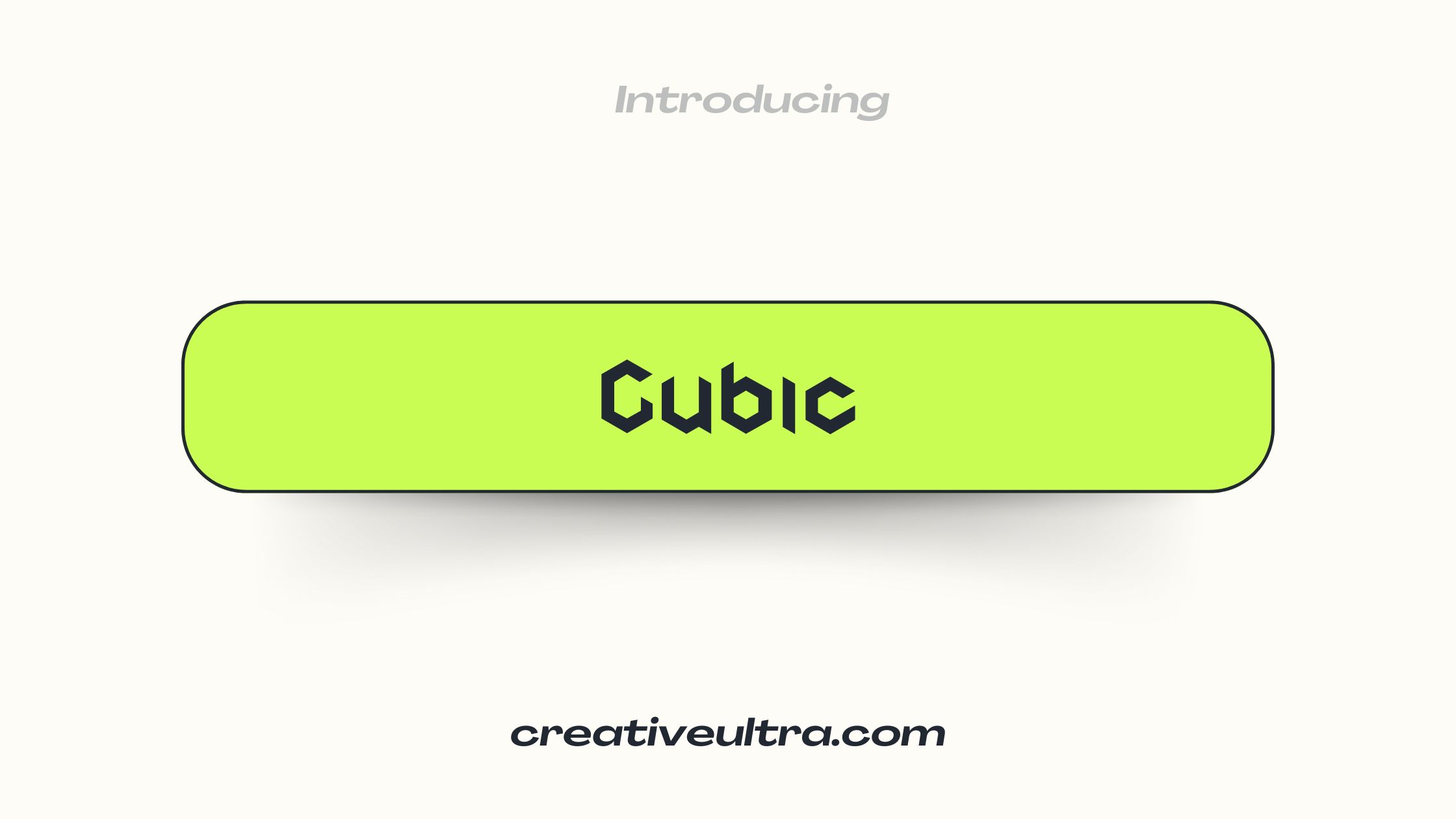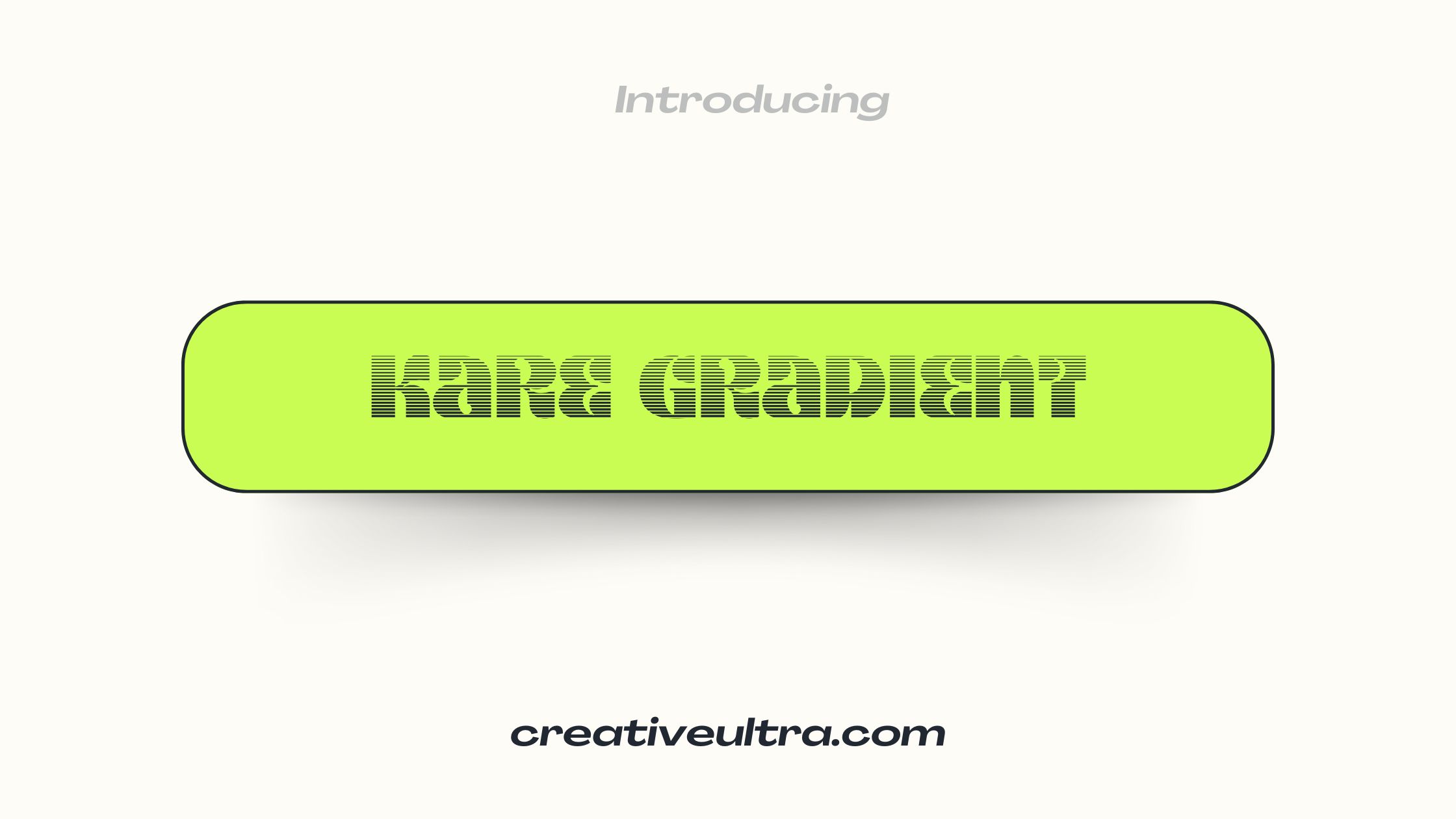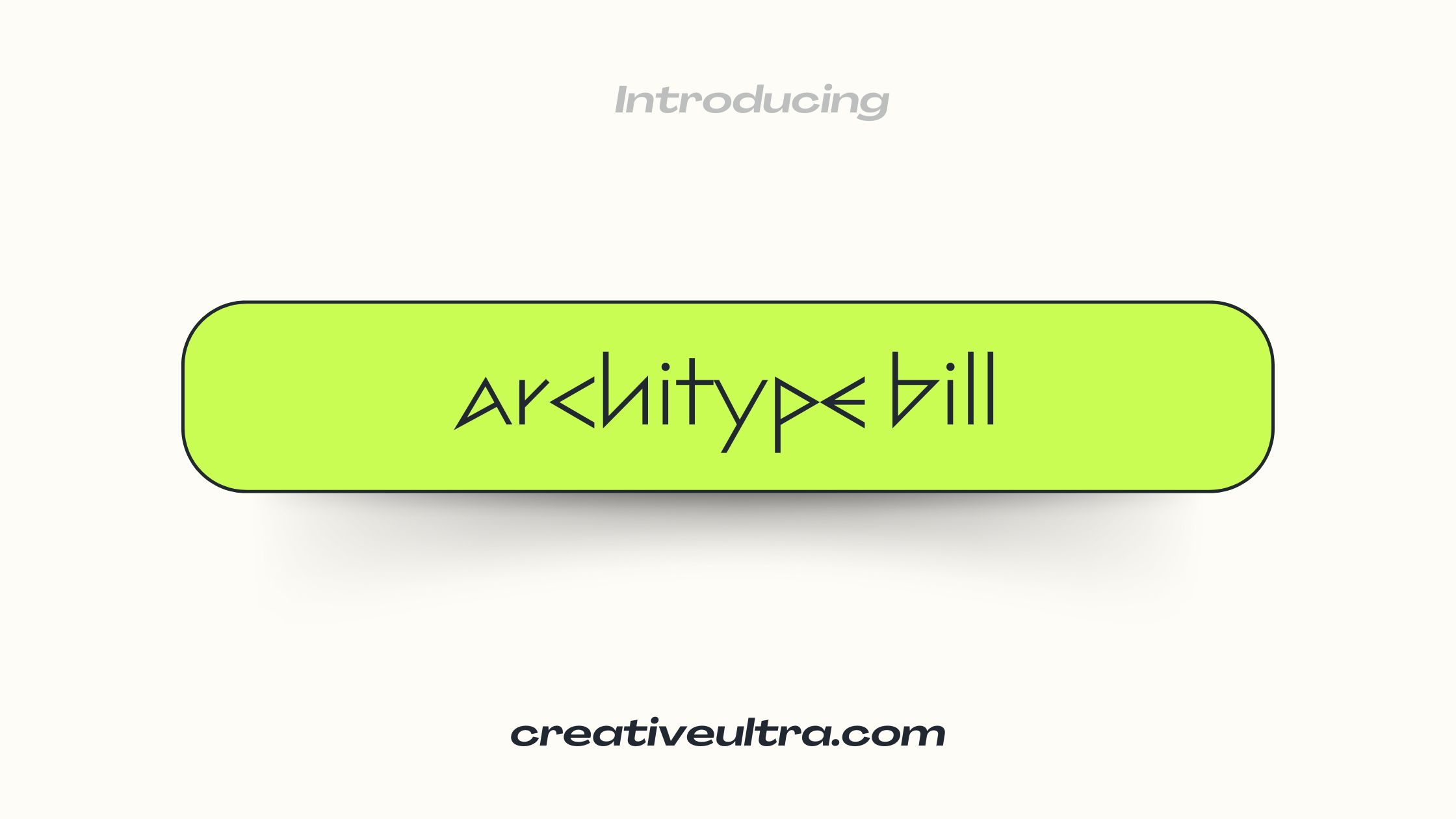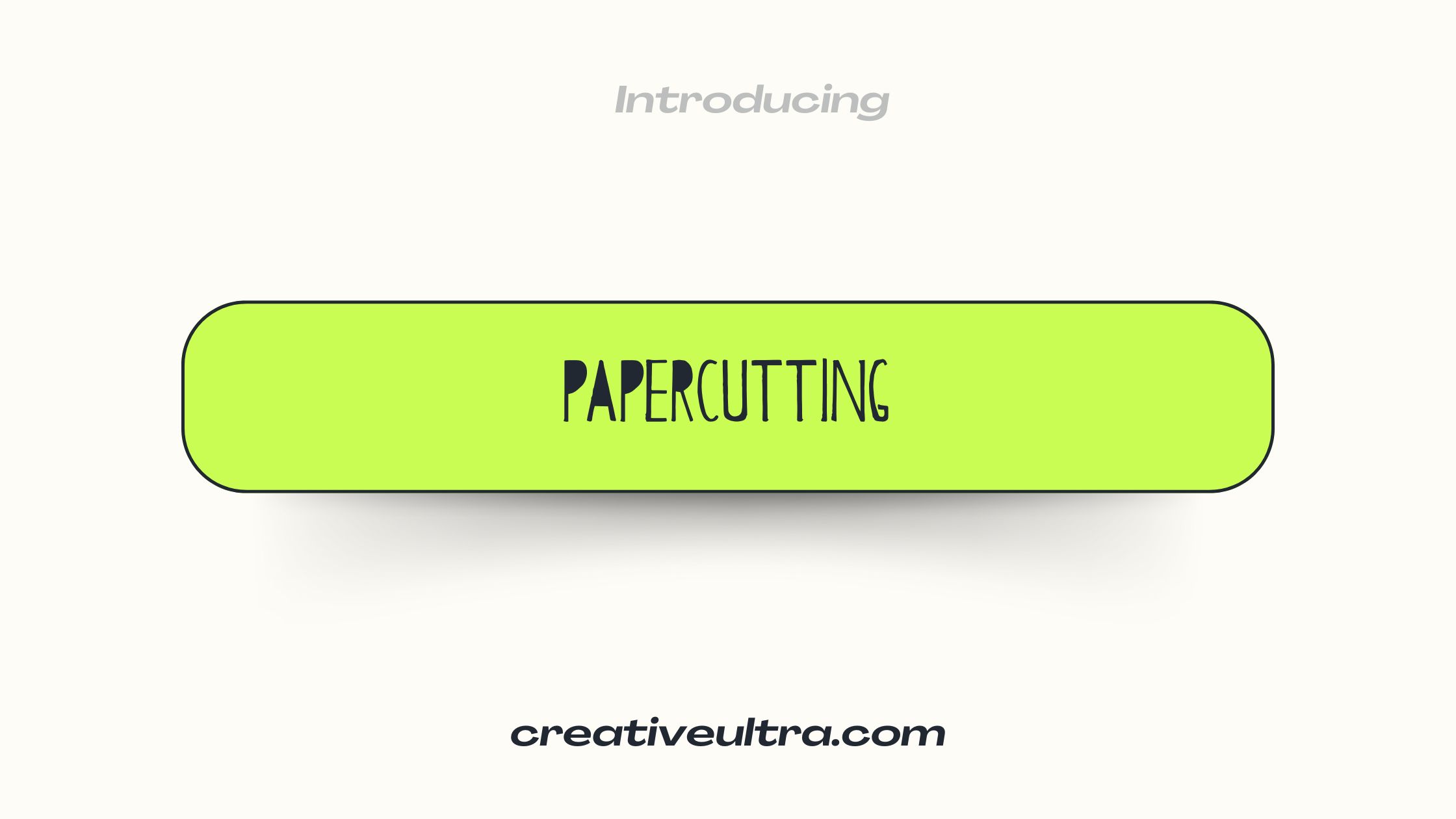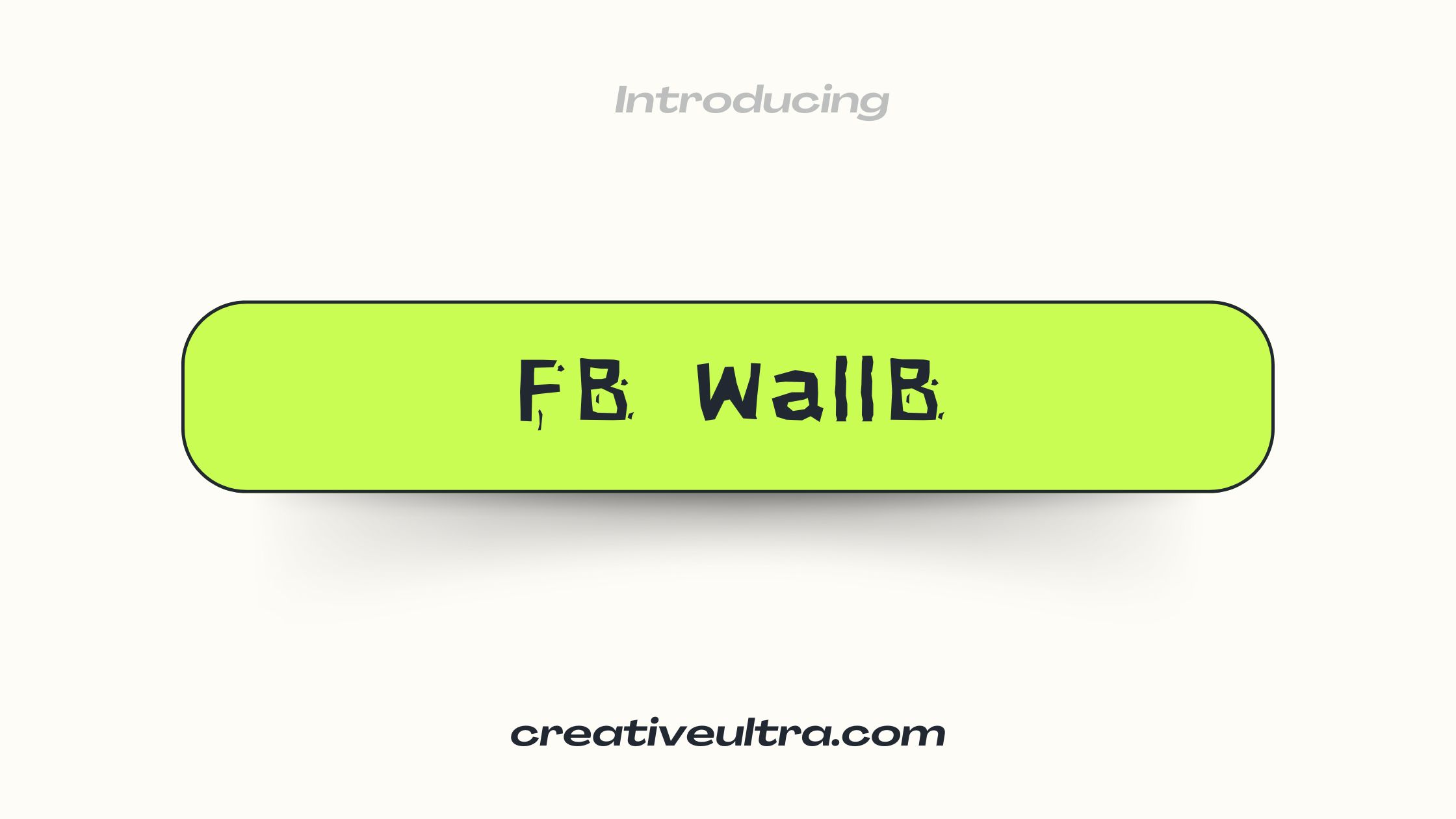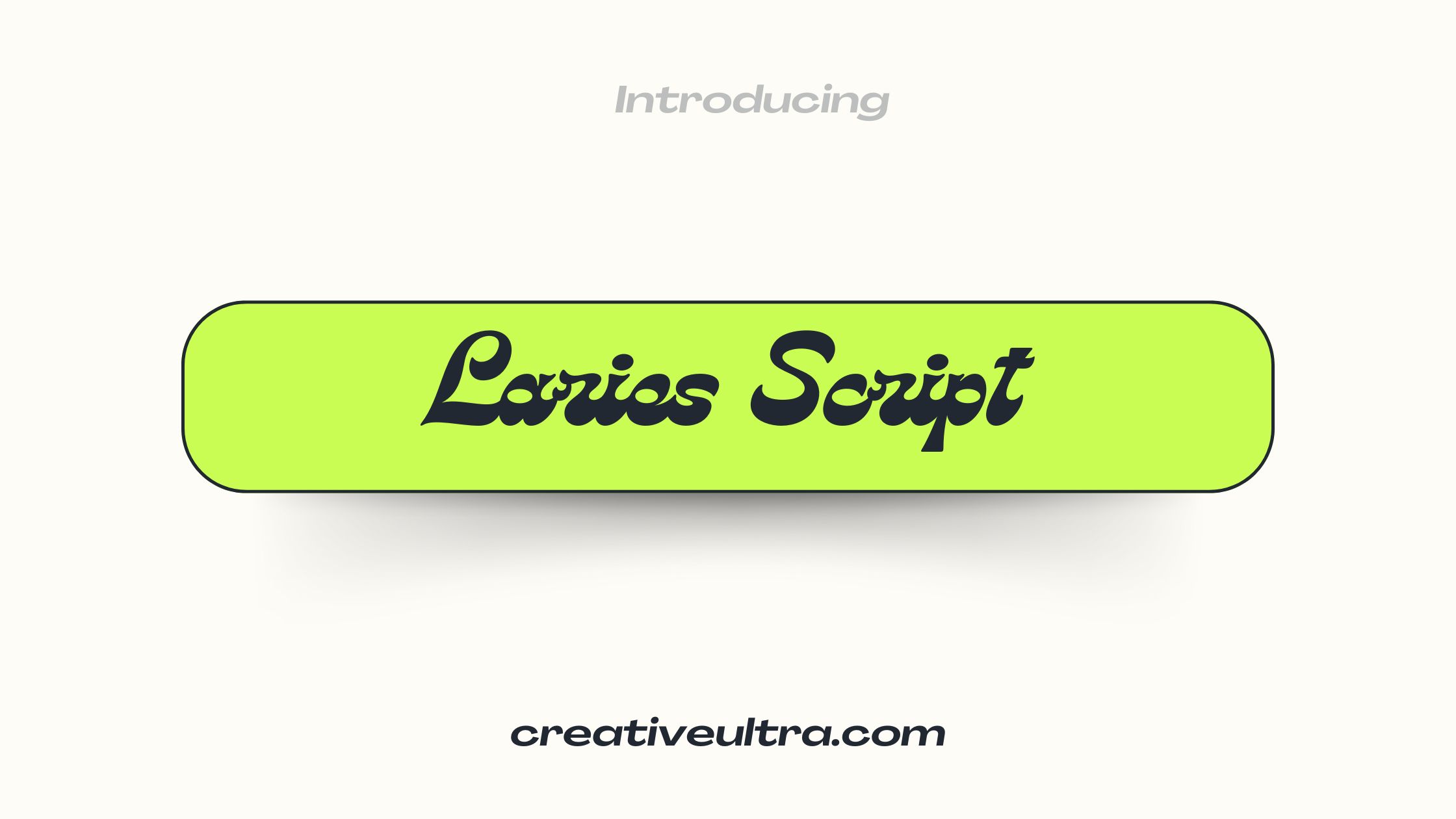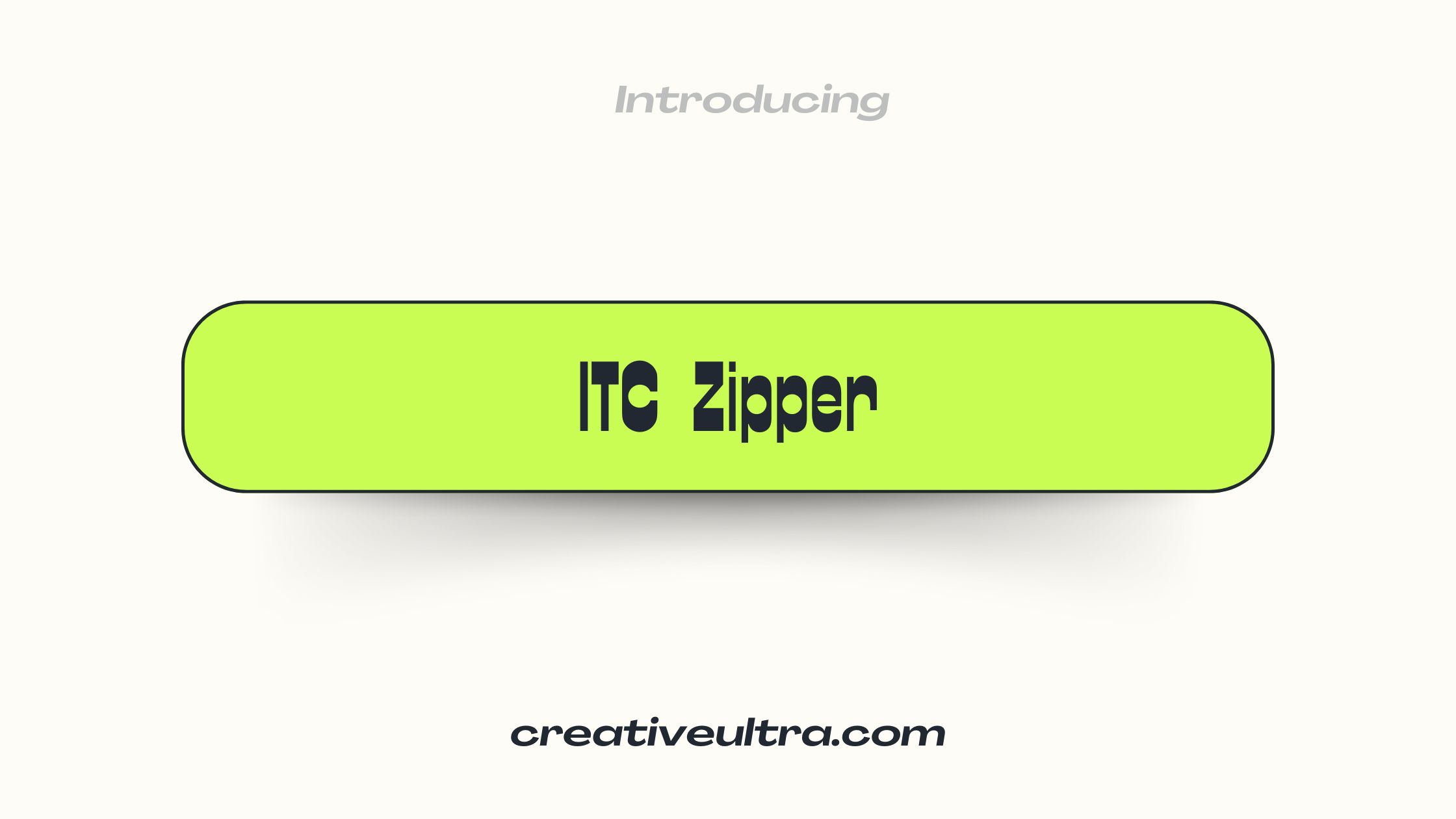
Groovy Fonts on Canva
Are you in the mood for something enjoyable and universal? Groovy fonts should be used in your work. There are a lot of groovy fonts on Canva that you can use for your content or creative projects. Some of these fonts have unique looks and feel that are both old and new. They can make your text stand out.
This guide will show you some cool fonts that you can use on Canva. You can use these fonts for any creative project. They come in a range of styles, from strong blocky ones to fun scripts. Also, we’ll tell you a little about each font and suggest places where you can use them most effectively.
Feel free to use these cool fonts on your next project, whether you’re a beginner trying out new ones or an experienced designer looking for new ideas. Let’s jump right in!
Best Groovy Fonts on Canva
Cubic Font
The letters in Cubic Font are big and look like squares. They have a 3D look to them. It’s great for posters, logos, and headlines that need a chunky font that stands out. You can use this font for modern branding or titles that are big.
Chromium One Font
The edges of Chromium One Font are smooth and sharp, giving it a futuristic look. It looks great with tech designs, sci-fi themes, or any project that needs to feel modern. For a modern look, use it in web design or digital art.
Hitchcut Font
The cool retro Hitchcut Font was made by looking at old movie posters and designs. If you want to use it for album covers, event flyers, or creative branding, this is the font for you. Its cool style gives any design a lot of personality.
Architype Van Font
Architype Van Font is a simple geometric font that looks fresh and up to date. It works well for building projects, modern logos, and magazine layouts. This font is timeless and useful because it is simple.
Architype Bill Font
The design of Architype Bill Font is more round and fun than that of its sister font, Architype Van. It’s great for projects for kids, creative branding, or anything else that needs a fun and light-hearted feel.
Papercutting Font
Papercutting Font looks like it was cut by hand, making it perfect for do-it-yourself projects, scrapbook layouts, or branding for hand-made goods. Its rough and textured look makes it feel personal and home-made, which makes it stand out in creative projects.
FB WallB Font
The thick letters in FB WallB Font give it a bold, graffiti-like look. It looks great in projects that are influenced by street art, are trying to be cool, or need a bold, urban feel. This font stands out and gives something a grungy feel.
Laries Script Font
The script in Laries Script Font is smooth and flows well. It has a retro feel to it. It looks great on wedding invitations, old logos, and any other design that needs a personal and classy touch. This font gives your work a touch of style and class.
ITC Zipper Font
The ITC Zipper Font is a fun, zigzag font that looks lively and fun. It’s great for making fun event posters, kids’ products, or creative logos. This font gives any fun project a little extra something.
Kare Gradient Font
Kare Gradient Font is unique and stands out because it has a gradient effect built into the design. It’s great for digital art, bold social media posts, and modern, trendy designs. This font gives your projects a cool, colourful look right away.